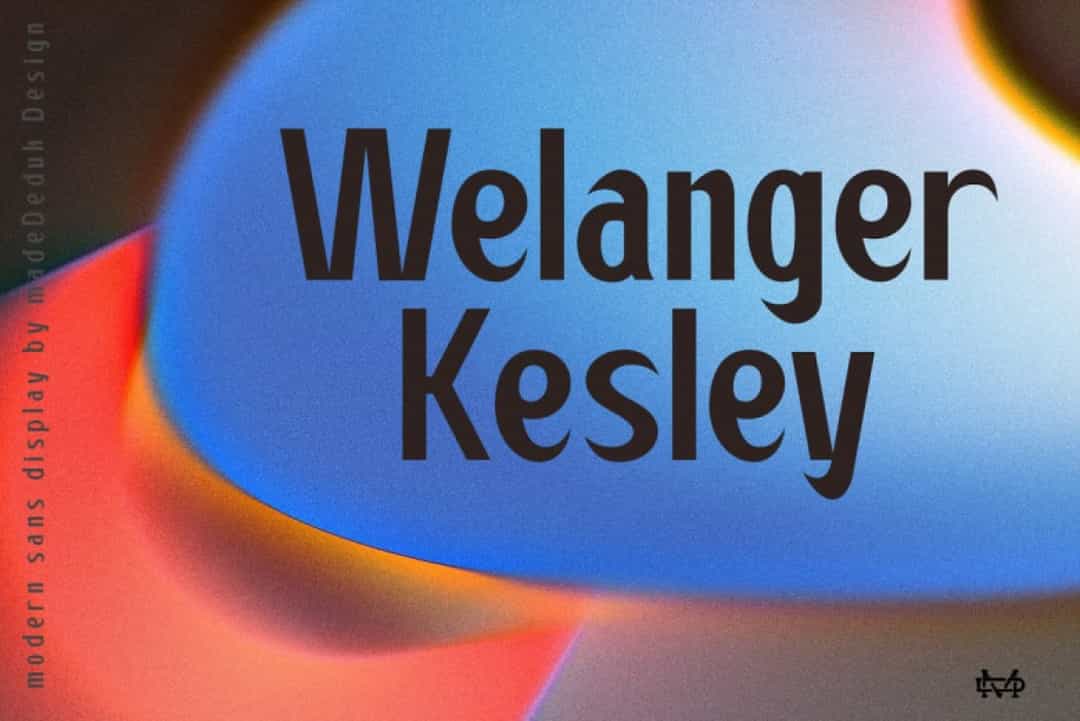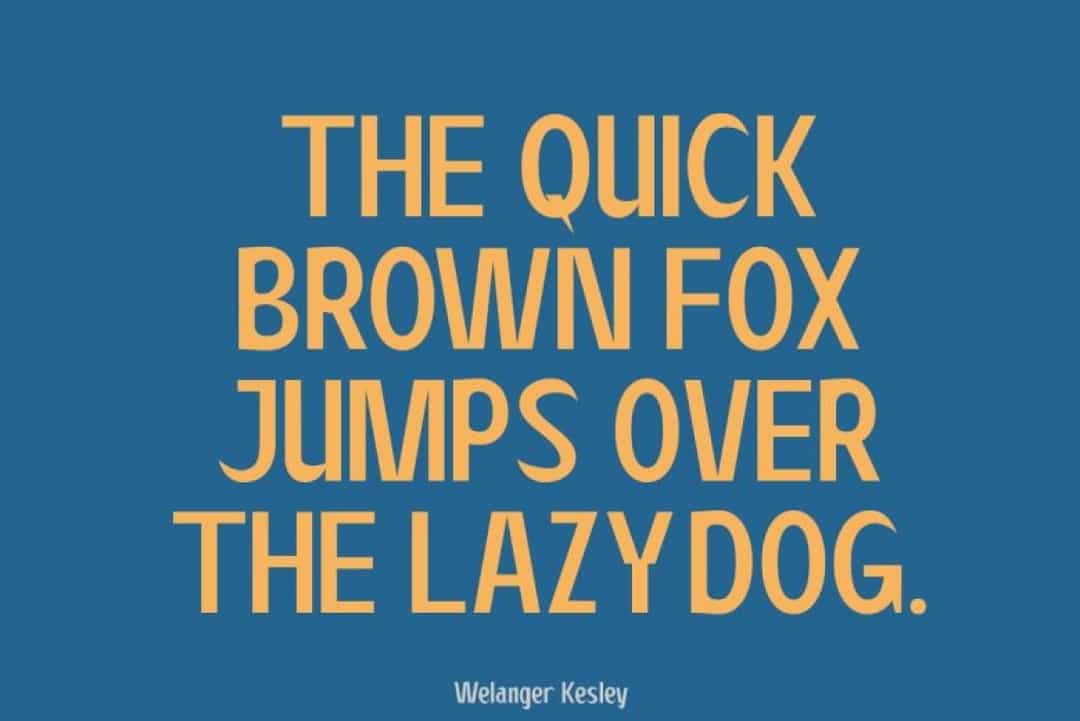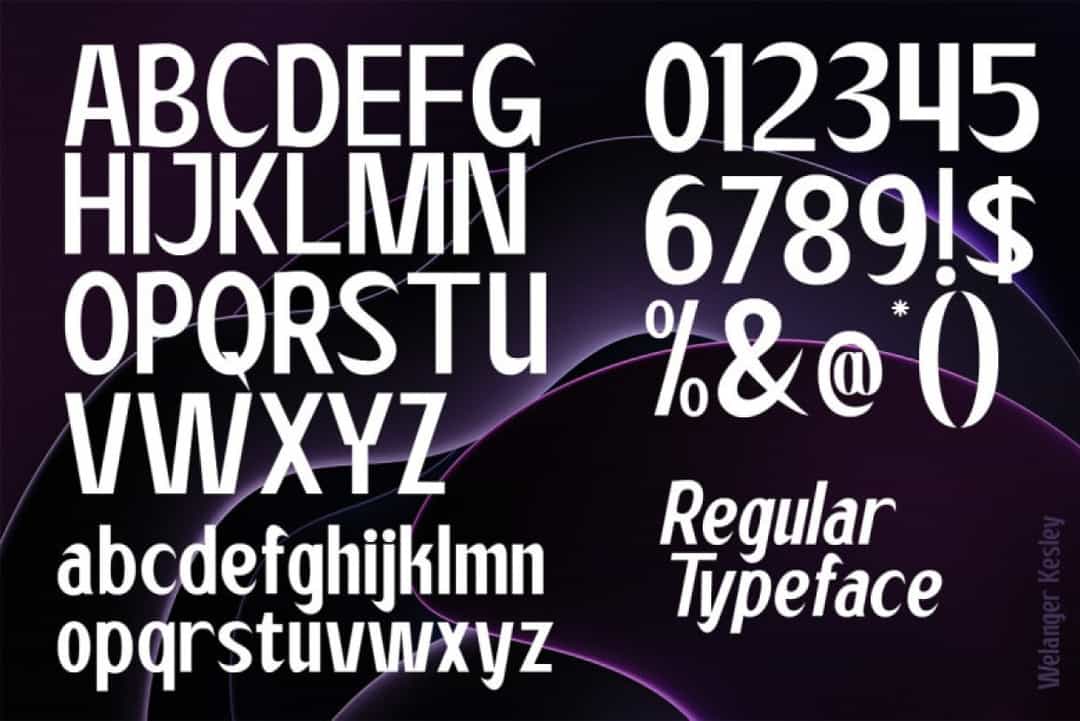
Welanger Kesley Display Sans font offers you the ability to use this font for branding, packaging products and invitations/invitations or quotes; label posters; logos etc.